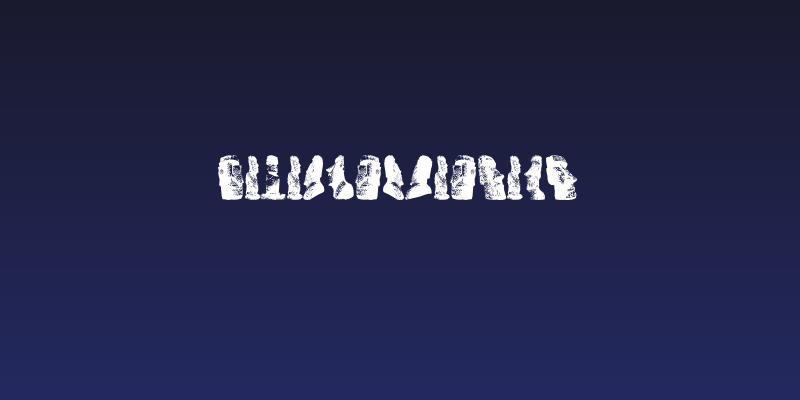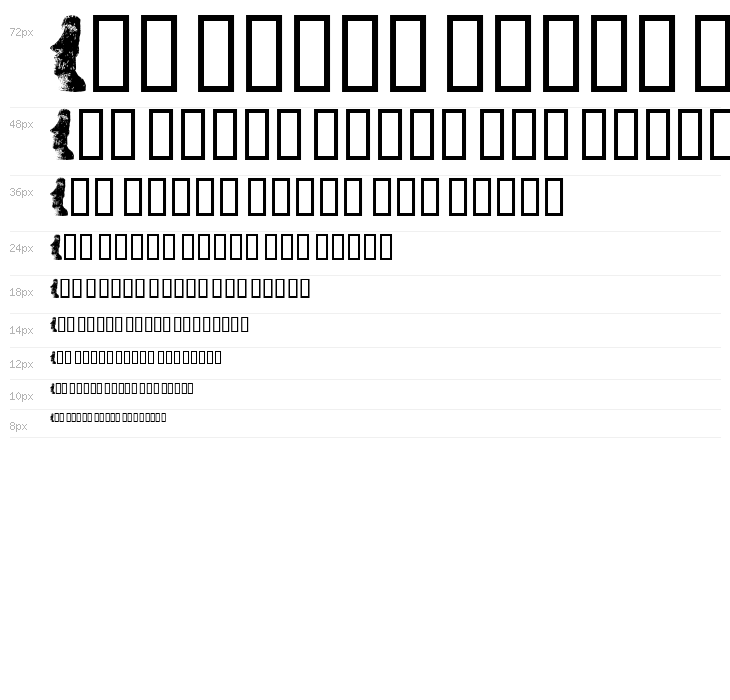
RapaNuiMoaiBats Font
RapaNuiMoaiBats Description
This unique decorative font features stylized representations of the iconic Moai statues from Easter Island. Each character is intricately designed to resemble the stone carvings, capturing the mysterious and ancient essence of these monumental figures. The font is highly artistic, with each letterform taking on a sculptural quality that makes it stand out. The detailed textures and shadows give a three-dimensional appearance, making it ideal for creative projects that require a touch of historical or cultural depth.
| Proposed Projects | Ideal for cultural exhibitions, historical documentaries, themed posters, or any project seeking to evoke a sense of mystery and antiquity. |